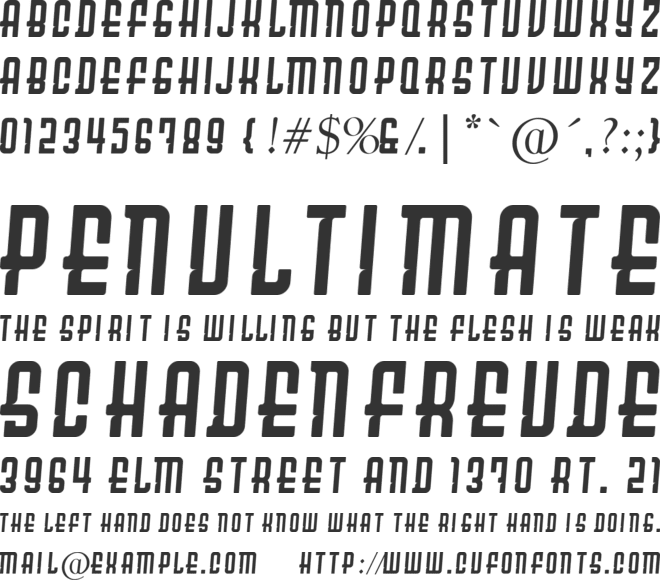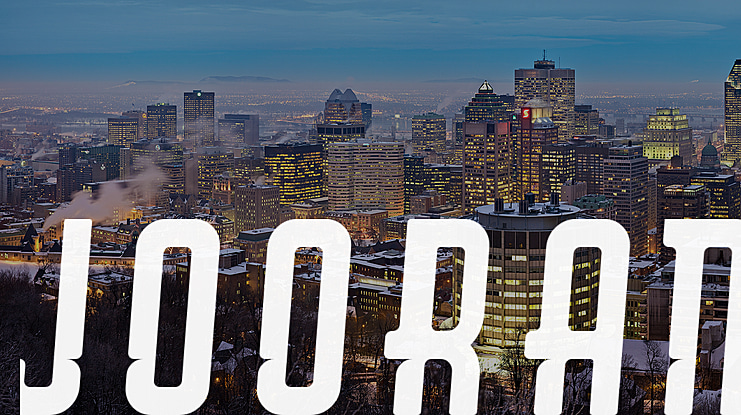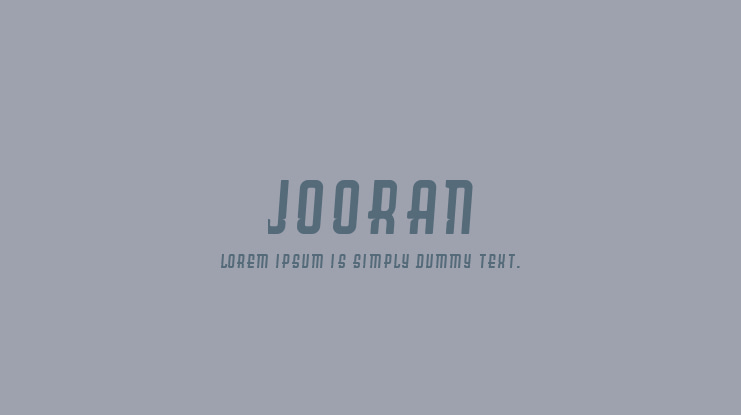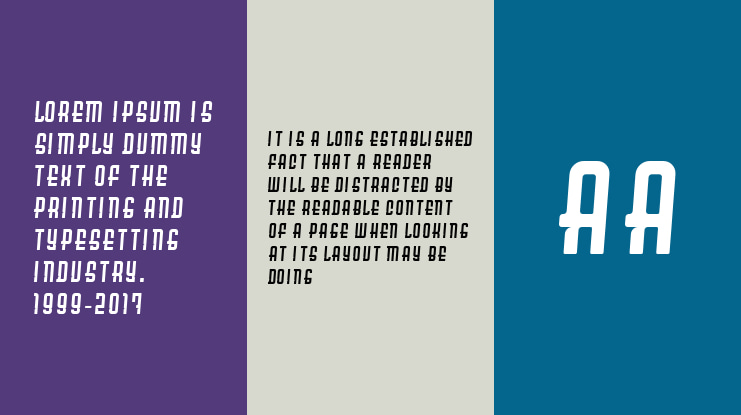
JOORAN Font
Jooran is a modern sans-serif typeface. This caps all of bold geometric letters, numbers, and punctuation. I hope to see some feedback in the comments:. I really appreciate your donation to us, PayPal account: